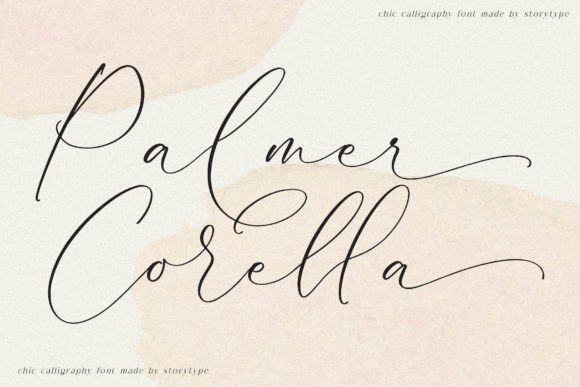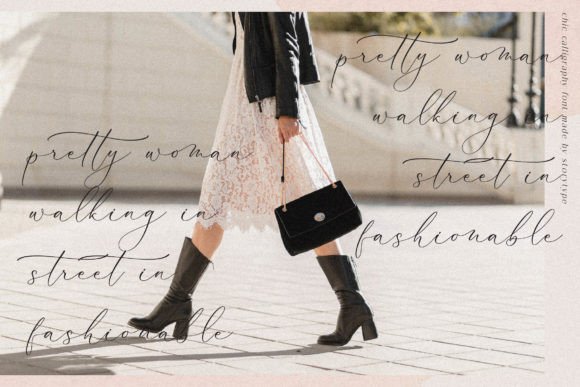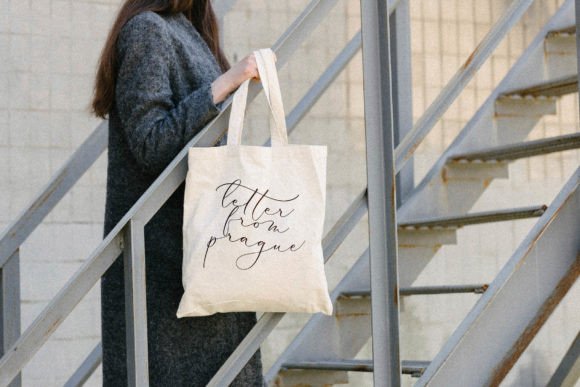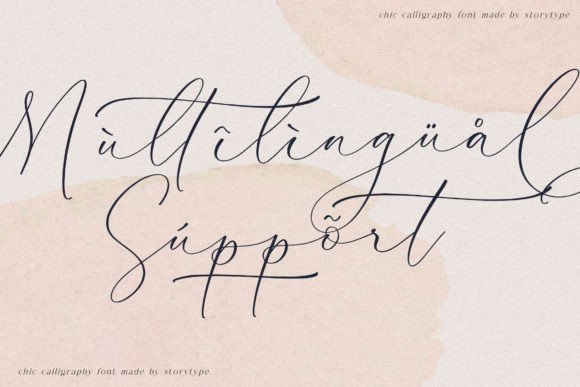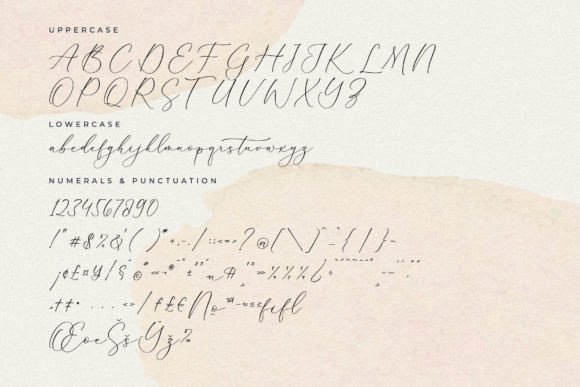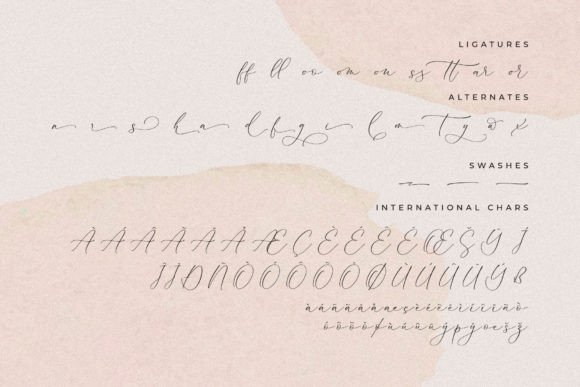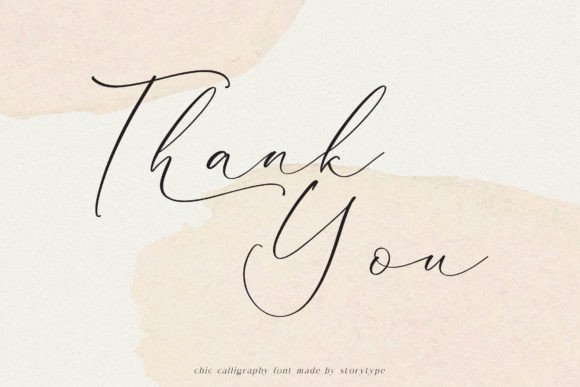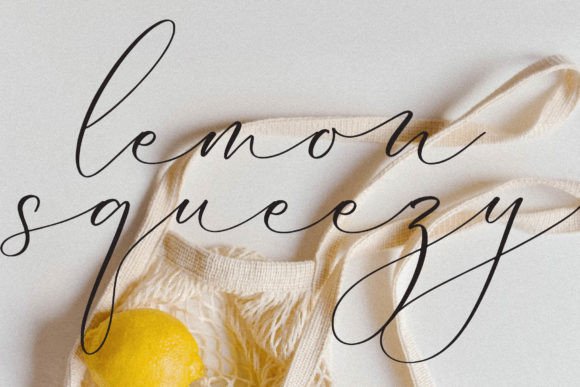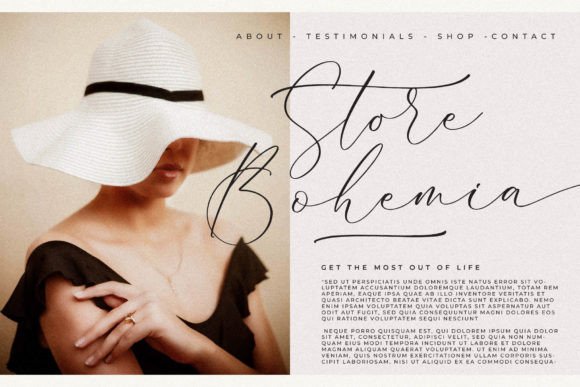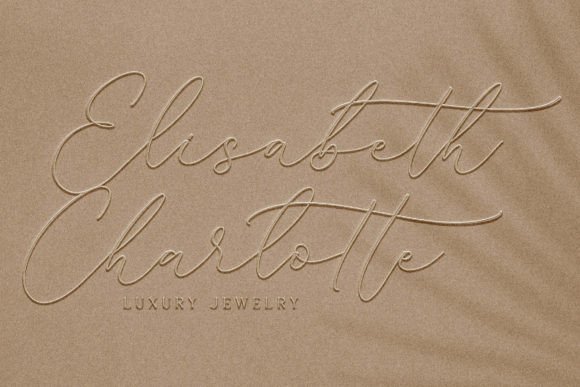
Palmer Corella Font
About Palmer Corella Font
Palmer Corellafont is a chic and modern calligraphy typeface designed to bring luxury and uniqueness to your creative projects. This elegant font combines classic calligraphic beauty with a contemporary edge, making it a versatile choice for designers aiming to create stylish and high-end visuals. From logos and book or movie titles to fashion branding and magazines, Palmer Corellafont enhances every design with its sophisticated flair.
Luxurious and Unique Calligraphy Style
The Palmer Corellafont embodies a luxurious vibe through its graceful and fluid strokes. Its distinct character shapes offer a fresh, modern take on traditional calligraphy, which makes it stand out in any project. The font’s uniqueness ensures that your designs will leave a lasting impression, whether in print or digital formats.
Versatile for Various Design Projects
This typeface suits a broad array of applications. It is perfect for creating elegant logos that demand a refined aesthetic and for crafting impactful book and movie titles. Fashion brands and magazines will find Palmer Corella ideal for enhancing their visual identities with a touch of luxury. The font is also suitable for clothing designs, quotes, invitations, and decorative lettering, giving you endless creative possibilities.
Features and Practicality
Palmer Corellafont offers not only beauty but also functionality. It maintains excellent readability despite its decorative style. This makes it an excellent choice for both large display texts and smaller-sized applications. It works beautifully in branding materials, packaging, editorial layouts, and more, adding sophistication wherever it is used.
Why Choose Palmer Corella Font?
Choosing Palmer Corellafont means selecting a typeface that balances modern elegance with a timeless calligraphy tradition. It helps designers create striking and memorable designs with ease. Whether you are working on luxury branding, fashion projects, publishing, or any creative idea that requires a chic handwritten style, Palmer Corellafont delivers exceptional results with style and grace.